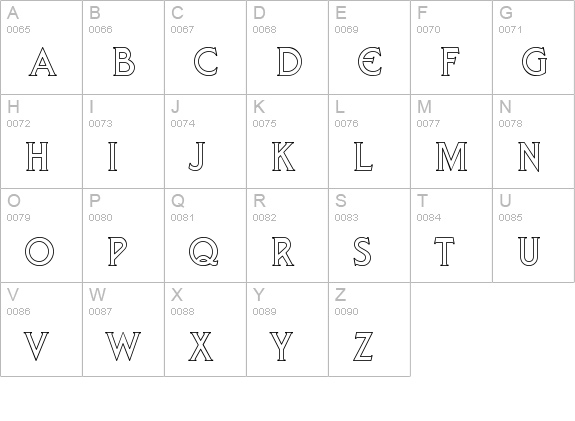
Liberty Hollow is a captivating and unique font that exudes a sense of freedom and creativity. Its elegant and flowing style makes it perfect for a wide range of design projects, from invitations to branding and more. The intricate details of this font give it a charming and whimsical feel, making it a standout choice for those seeking a touch of personality in their designs. What sets Liberty Hollow apart is not only its stunning visual appeal but also the fact that it is a free font. That's right, this beautiful font is freely available to download at FontsMarket.com, allowing designers and creatives to access its charm and versatility without any cost. With Liberty Hollow, you can add a touch of flair and individuality to your projects without breaking the bank. Download it today and let your creativity soar with this delightful font.